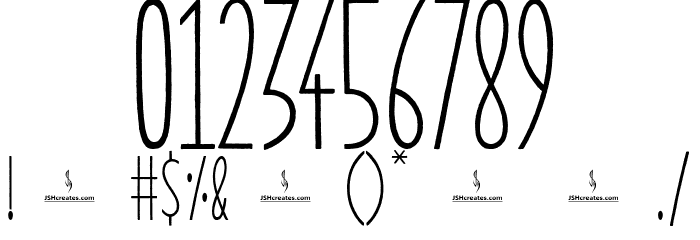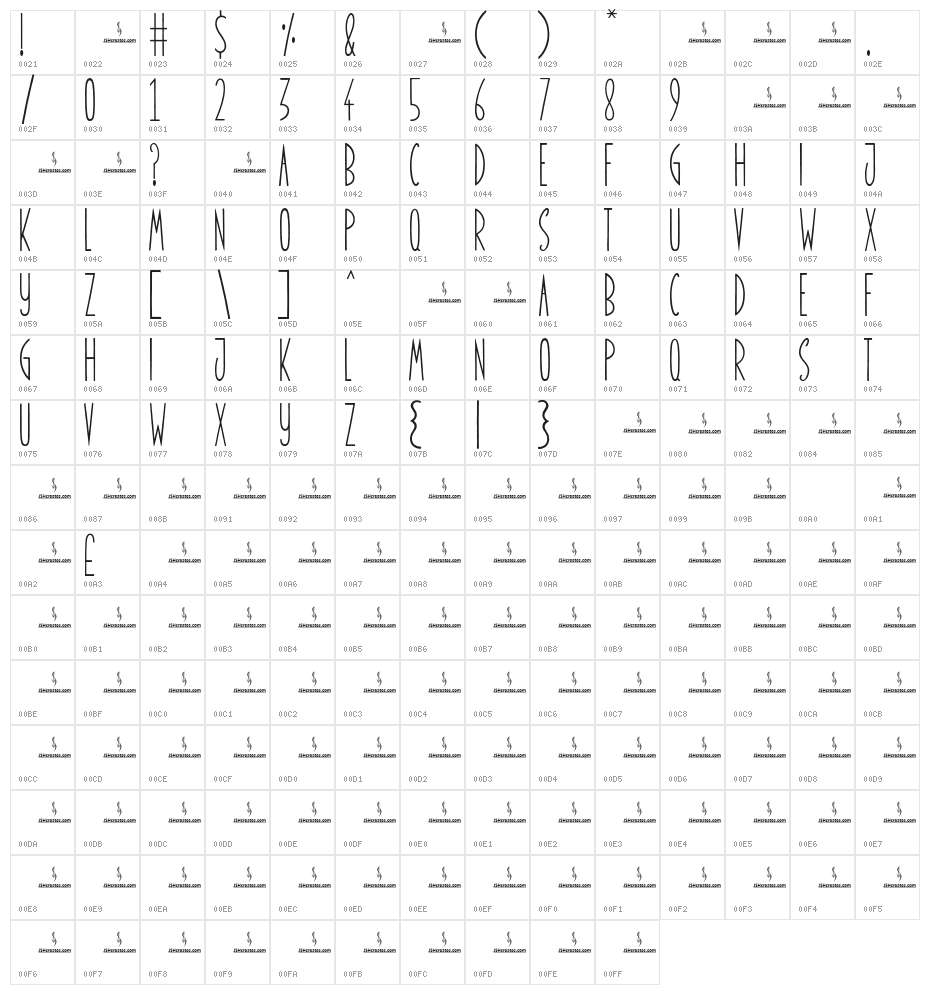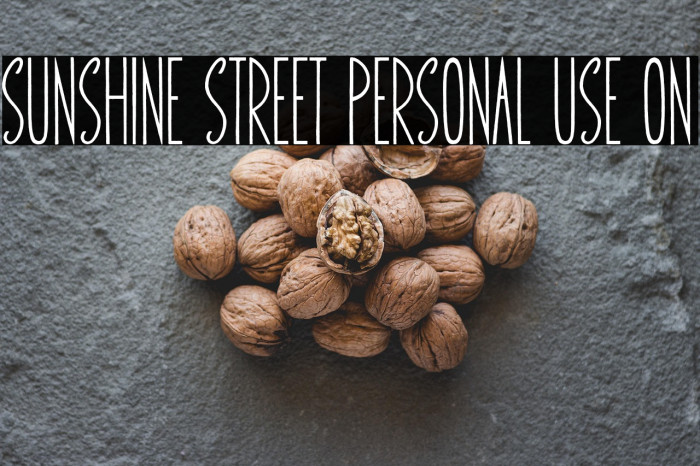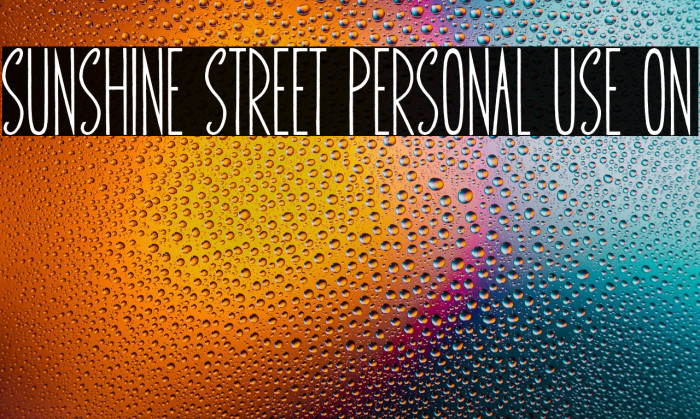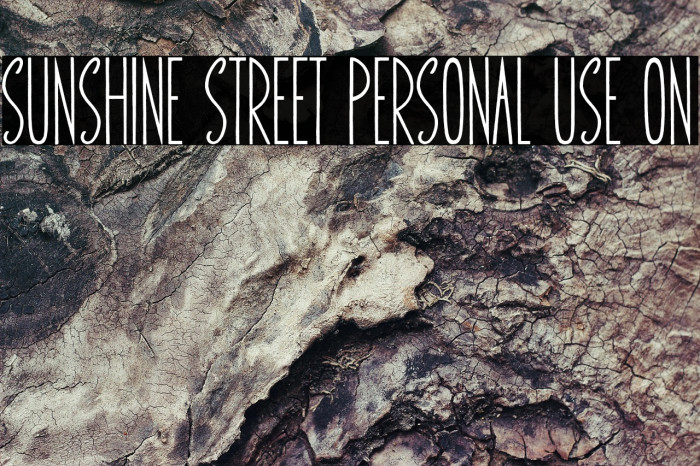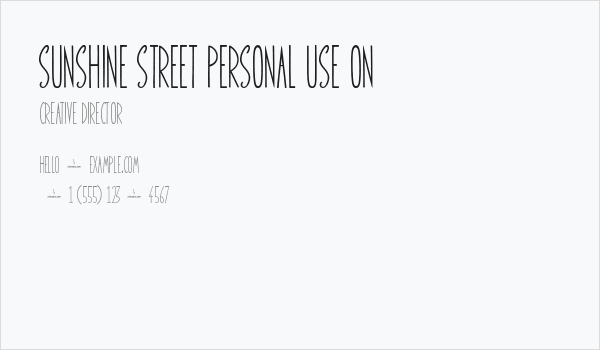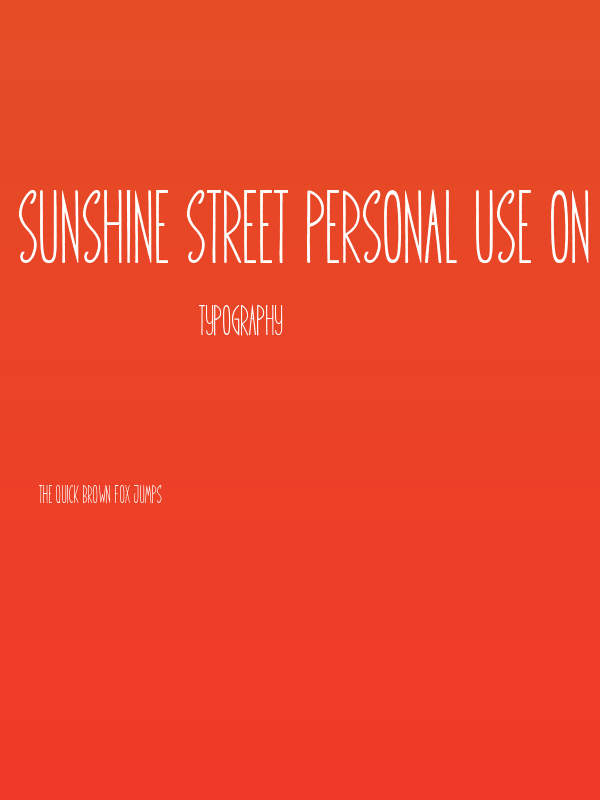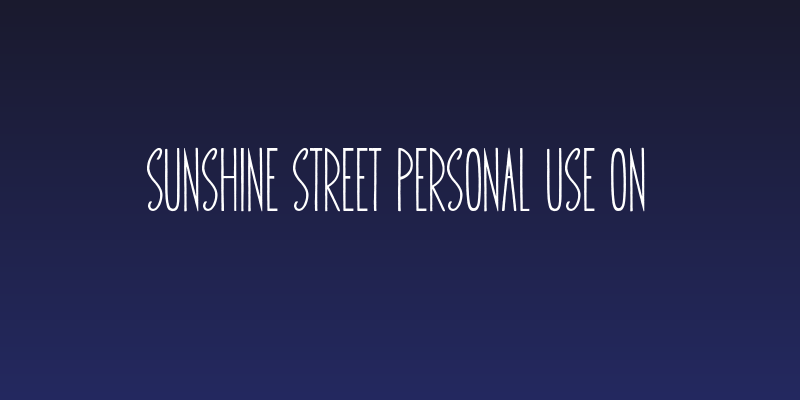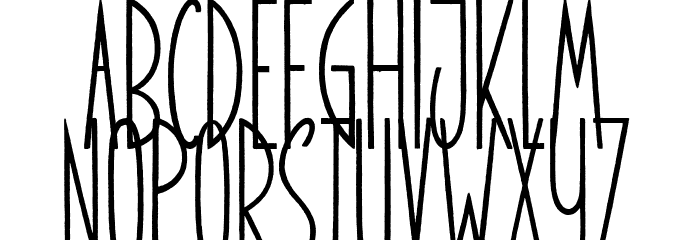
Sunshine Street Personal Use On Font
Sunshine Street Personal Use On Description
This font features an elongated and narrow design, giving it a distinct and modern appearance. The characters are tall and slender, with a consistent stroke width that adds to its sleek and contemporary feel. The uppercase and lowercase letters maintain a uniform height, creating a cohesive look across the alphabet. Numbers and special characters follow the same design principles, ensuring a harmonious style throughout. The font's unique structure makes it stand out, while its clean lines and minimalistic approach provide versatility for various design applications.
| Proposed Projects | Ideal for branding, posters, and editorial design where a modern and distinctive look is desired. |